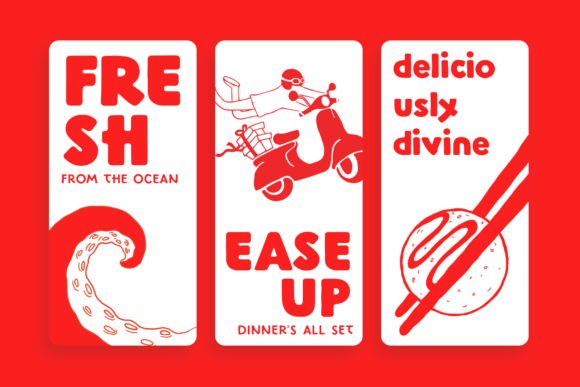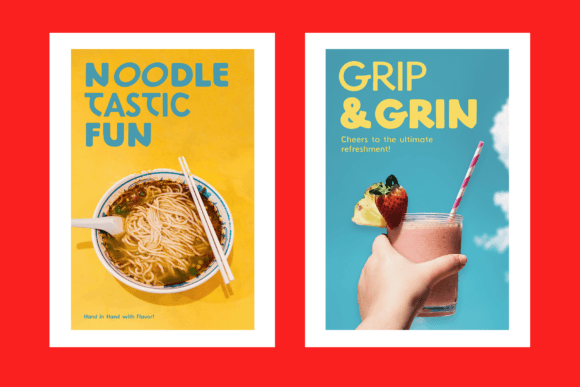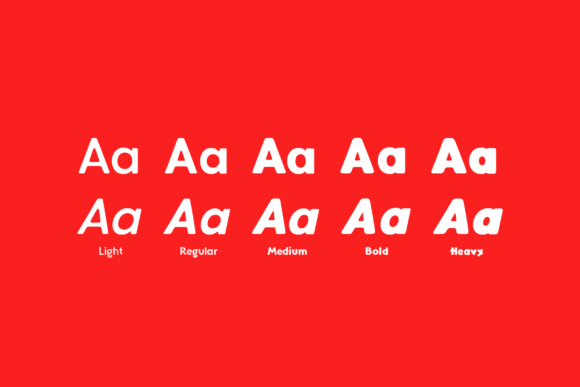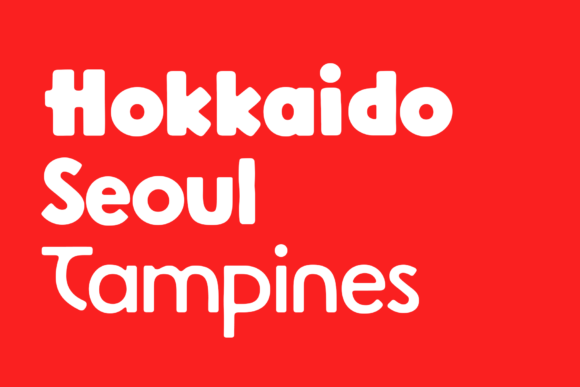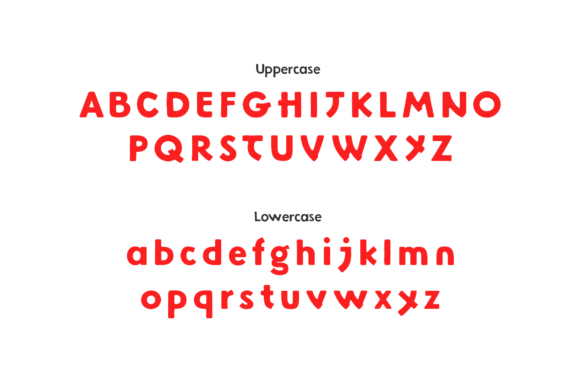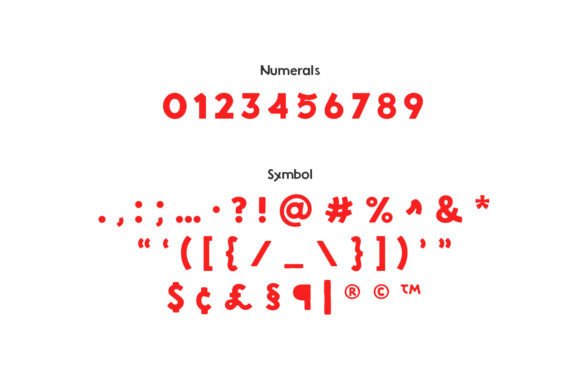
Discover the Perfect Blend of Tradition and Modernity: Hoki Font
For designers, the pursuit of the perfect font is often a lifelong quest. Enter Hoki Font, a contemporary hand-drawn sans-serif font that seamlessly blends the artistic traditions of East Asia with a modern twist. This beautiful font is designed to evoke the essence of Asian typography, with clean, playful, and organic lines that are sure to captivate your audience.
Hoki Font Key Features
- Font Family: Hoki Font is a unique sans-serif font designed to evoke a sense of modernity and minimalism.
- Unique Characteristics: Hoki Font features a distinctive geometric shape, with clean lines and subtle rounded edges, giving it a modern and sophisticated look.
- Character Set: Includes a comprehensive set of characters, including Latin, Cyrillic, and Greek alphabets, as well as punctuation and symbols.
Hoki Font Review
First off, I have to say that I was really excited to dive into the Hoki Font. The initial impression is that it’s a playful, modern font that could work well in a variety of projects.
- ✨ The font has a unique, hand-drawn feel that could add some personality to a design.
- ✨ The character set is fairly extensive, with a good range of punctuation and special characters.
- ✨ The font is highly legible, even at smaller font sizes.
However, there are some limitations:
- ⚠️ The font can feel a bit overplayed or clichéd in certain contexts, particularly if you’re going for a more serious or professional look.
- ⚠️ The font may not be the best choice for large blocks of text, as it can feel a bit tiring to read.
- ⚠️ There are some minor kerning issues in certain characters, which can affect the overall appearance of the text.
Overall, I think the Hoki Font is a solid choice for certain types of projects, but it’s not a one-size-fits-all solution. With some careful consideration of the context and the intended use, it could be a great addition to your design toolkit.
The Hoki Font is ideal for use in graphic design, digital marketing, and branding. It is particularly effective for creating visually appealing graphics, logos, and typography-based designs.